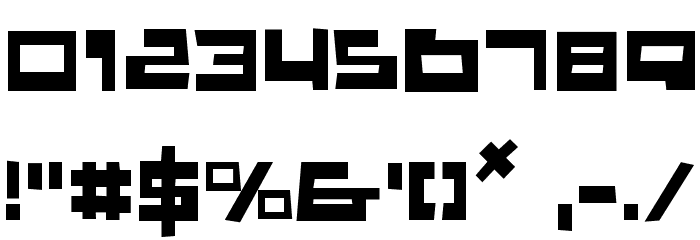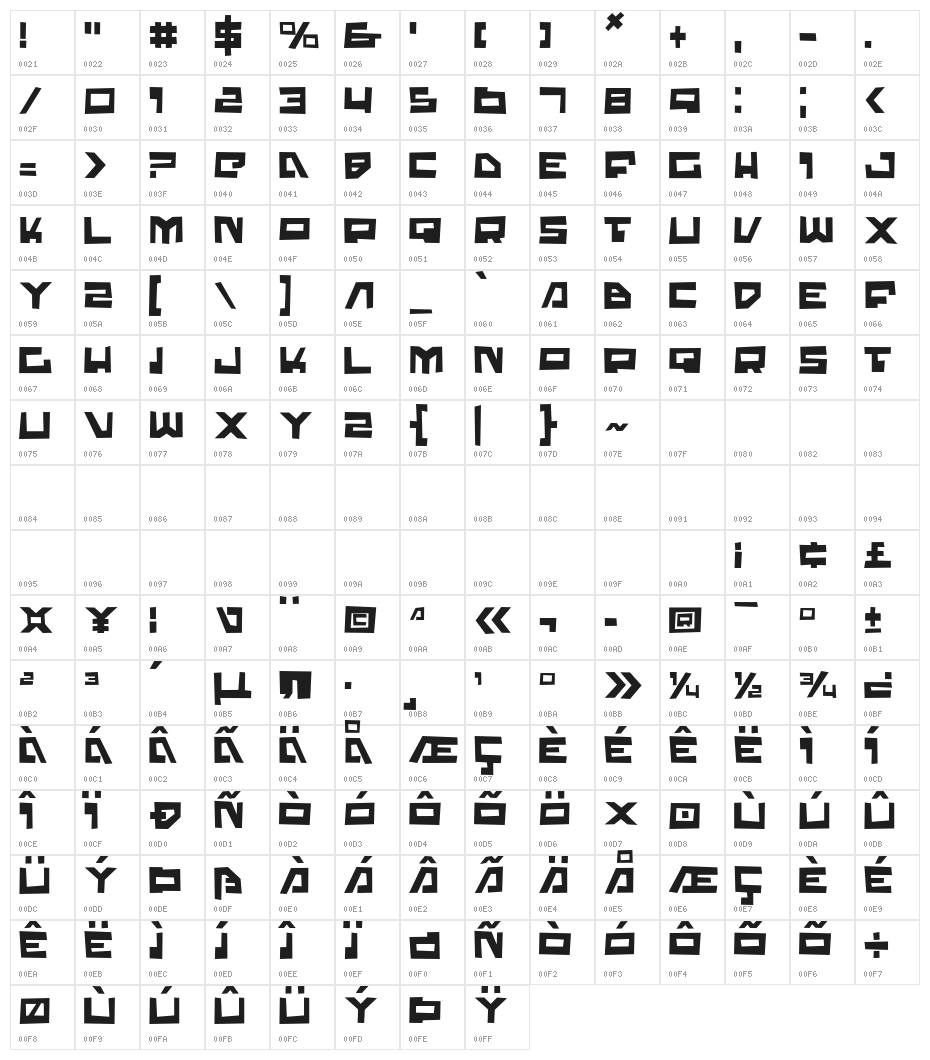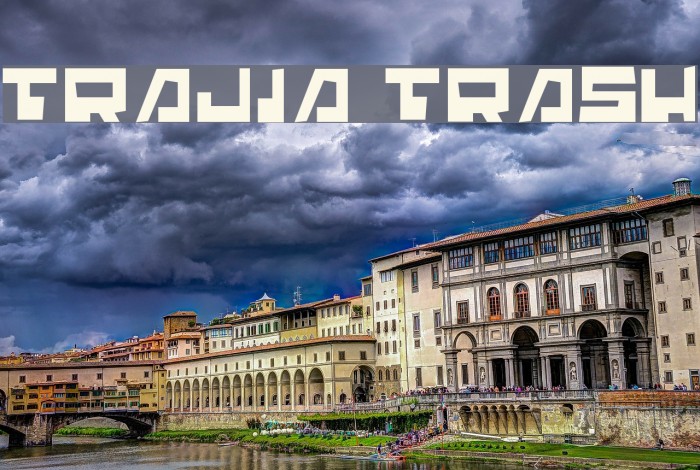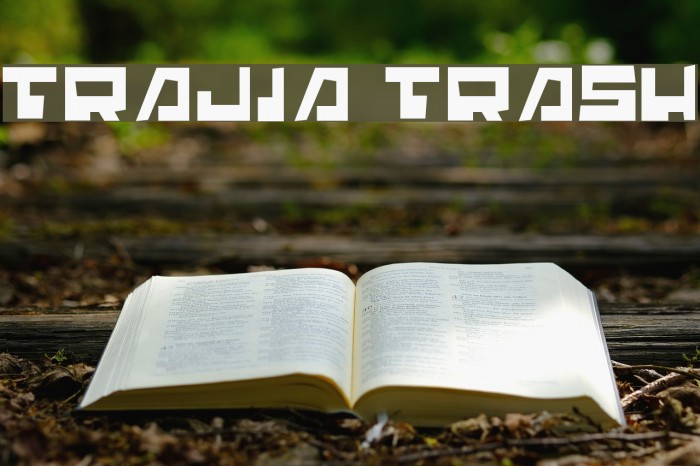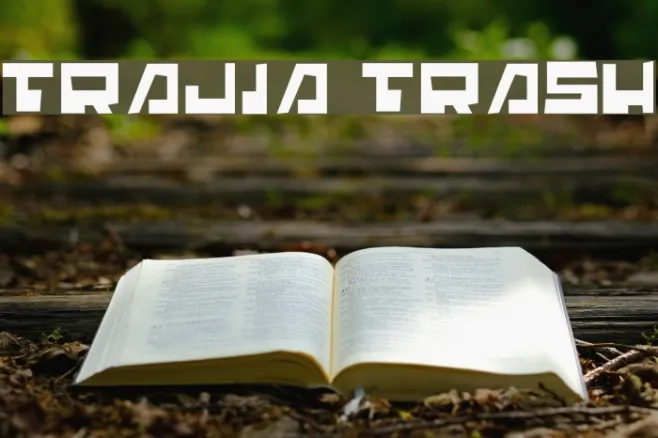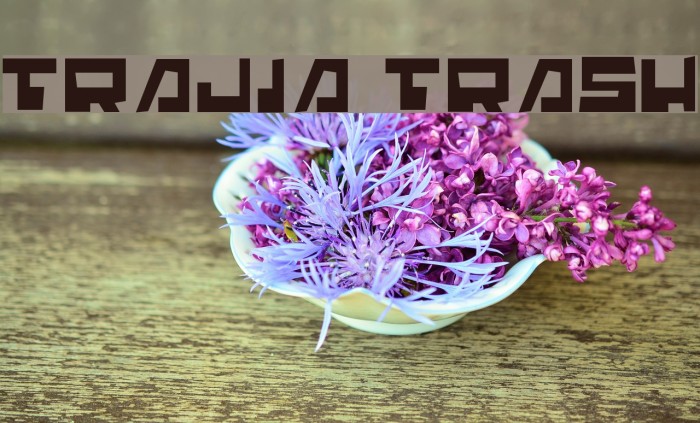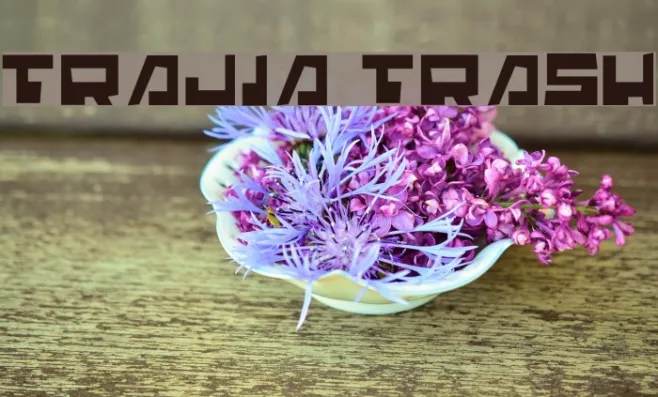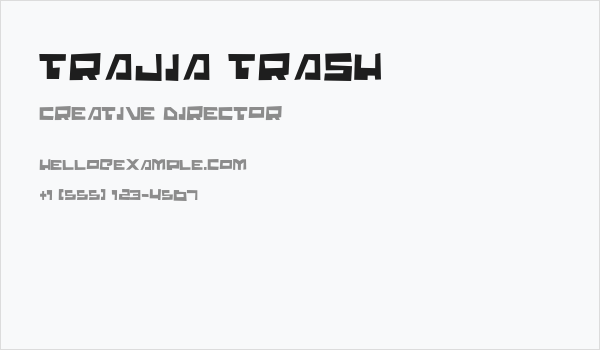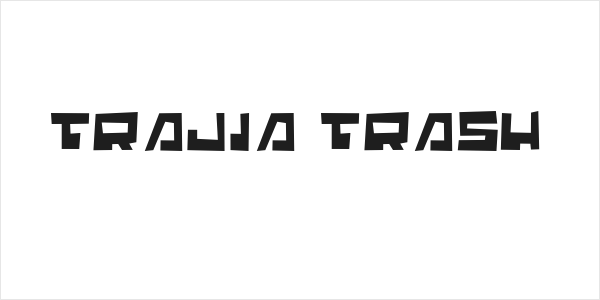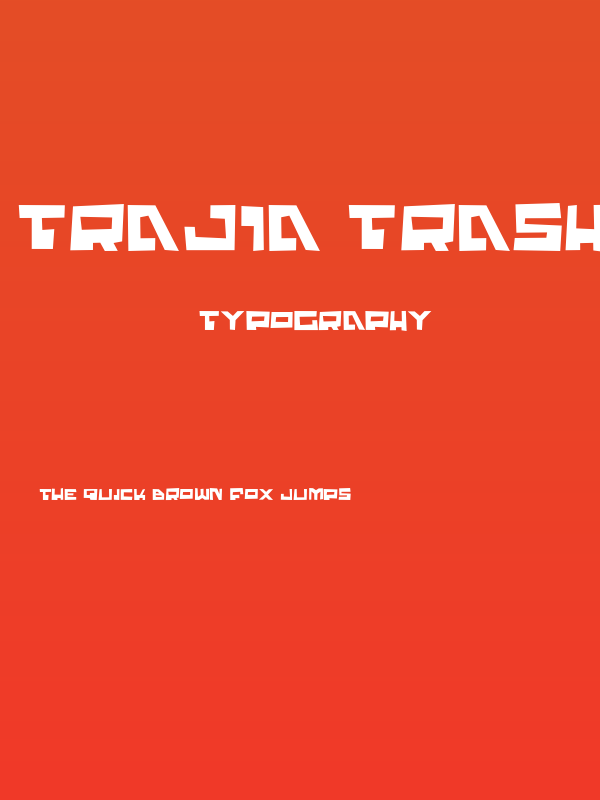
Trajia Trash Font
Trajia Trash Description
This font features a bold, geometric design with sharp angles and a futuristic aesthetic. Each character is crafted with precision, showcasing a unique blend of angular cuts and solid forms. The uppercase letters are particularly striking, with a blocky appearance that commands attention. The lowercase letters maintain the same angular style, providing consistency throughout the typeface. Numbers and special characters are equally bold, ensuring they stand out in any design. The overall look is modern and dynamic, making it suitable for projects that require a strong visual impact.
| Proposed Projects | Ideal for sci-fi themed designs, video game graphics, posters, and branding that requires a modern and bold statement. |